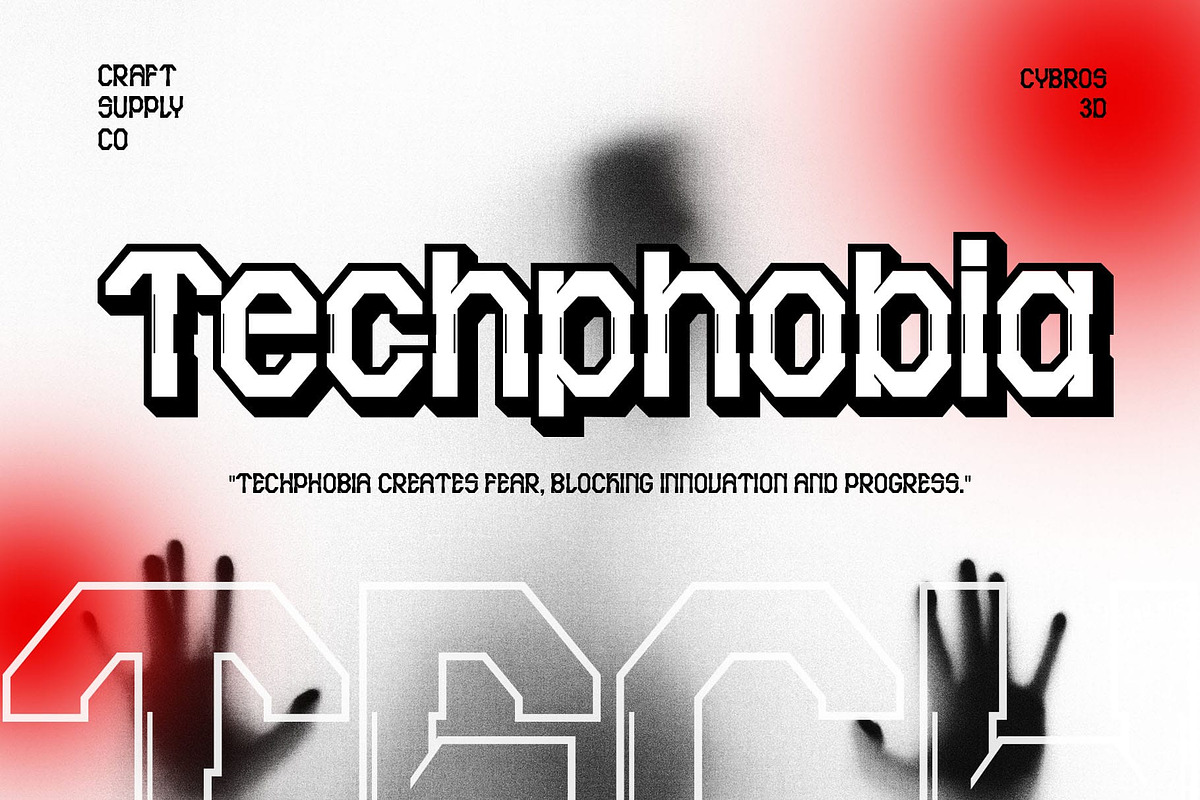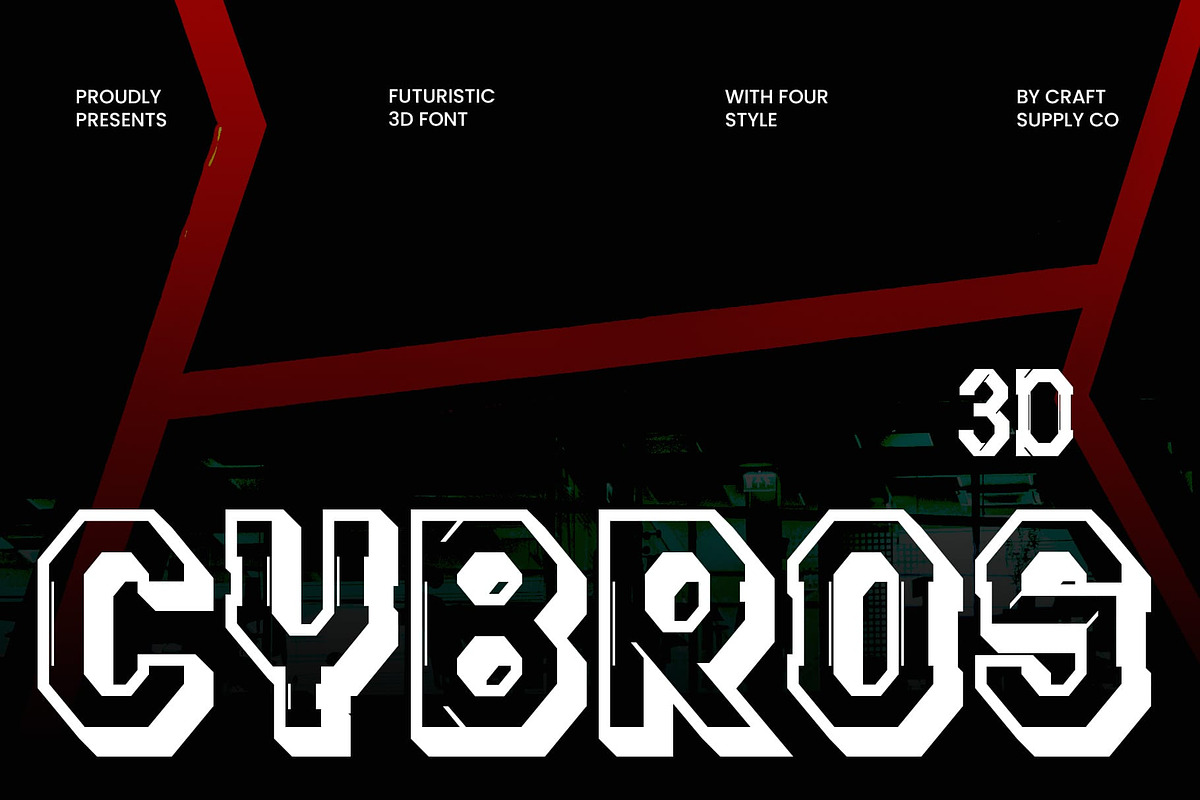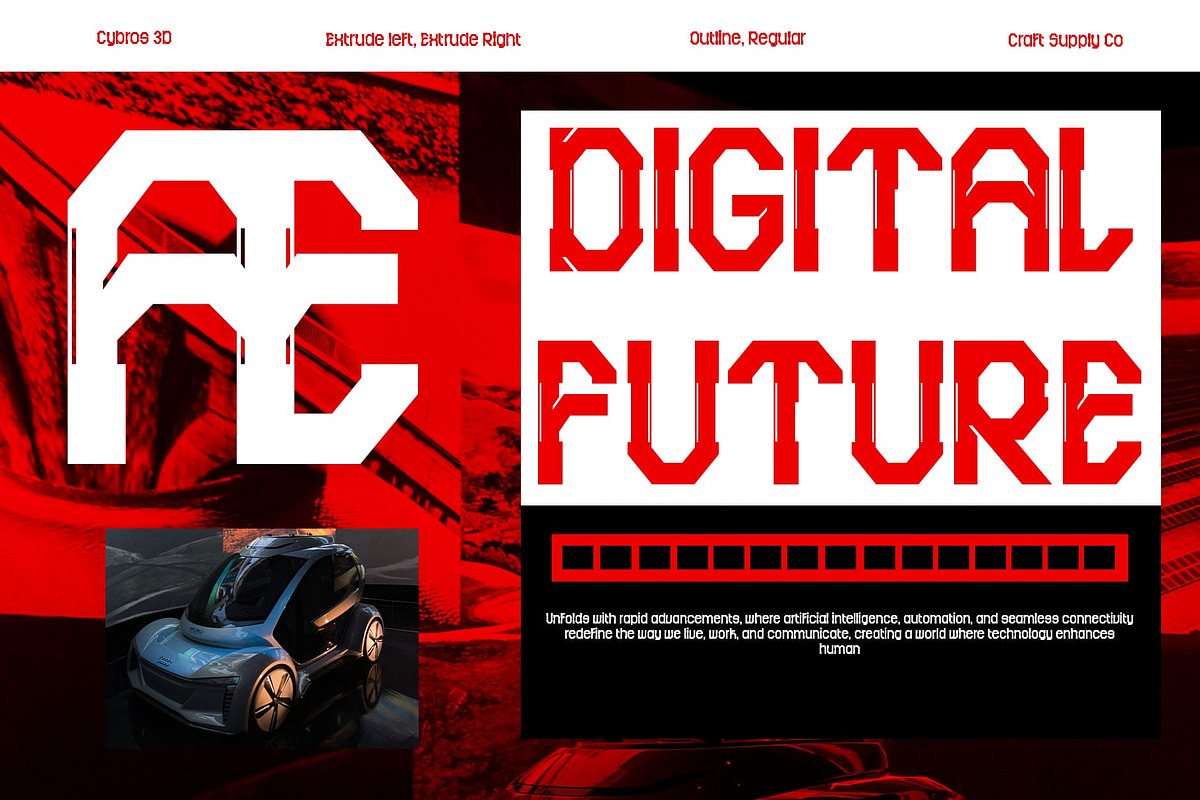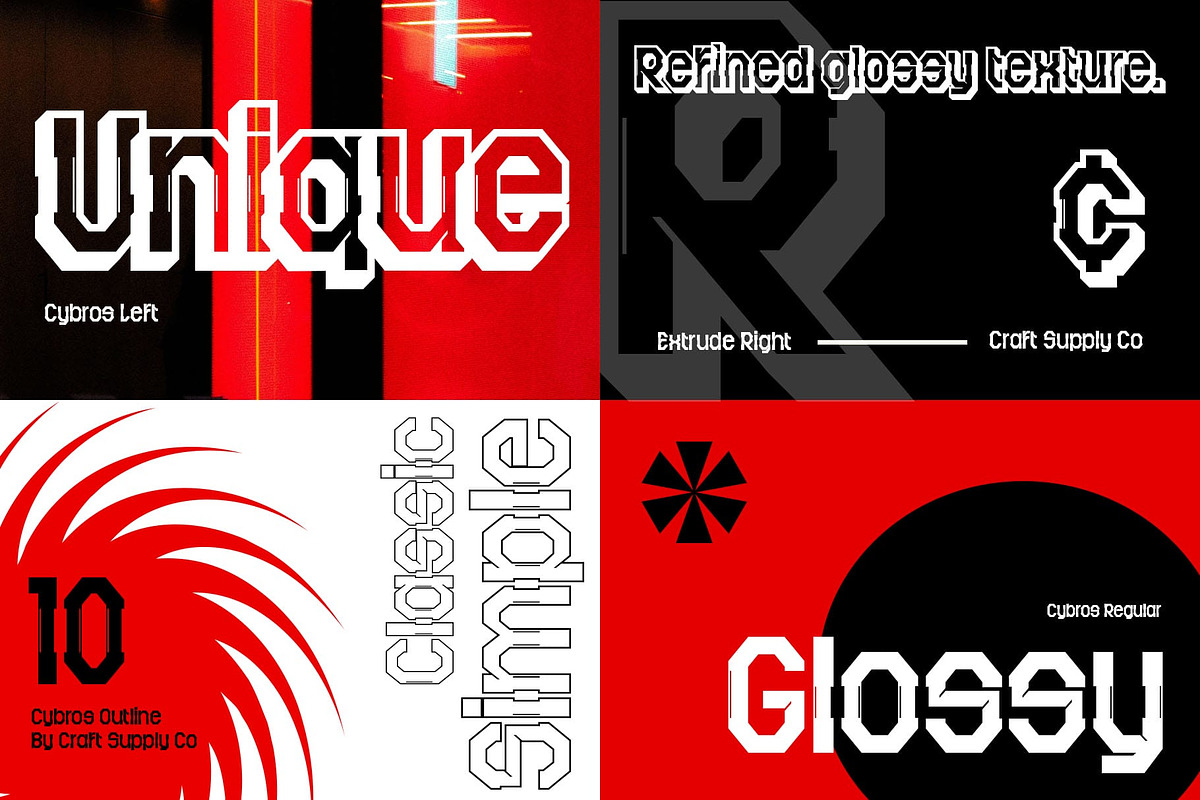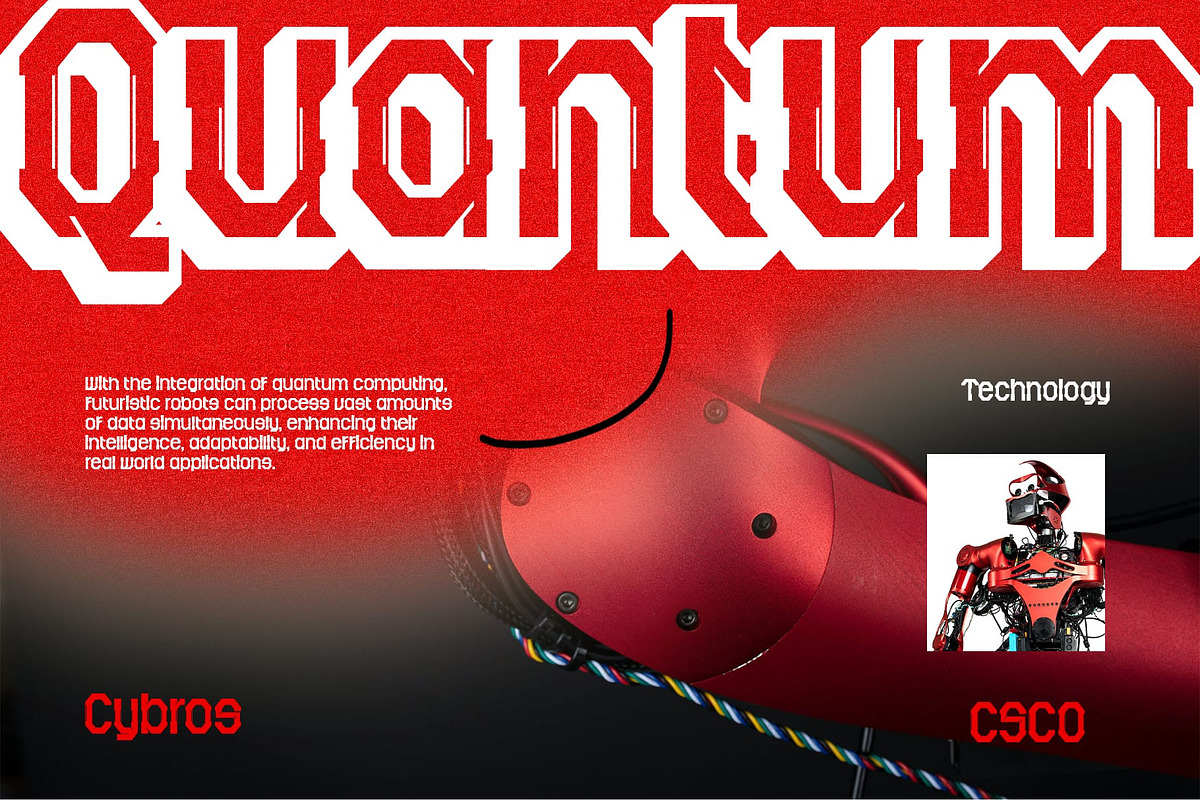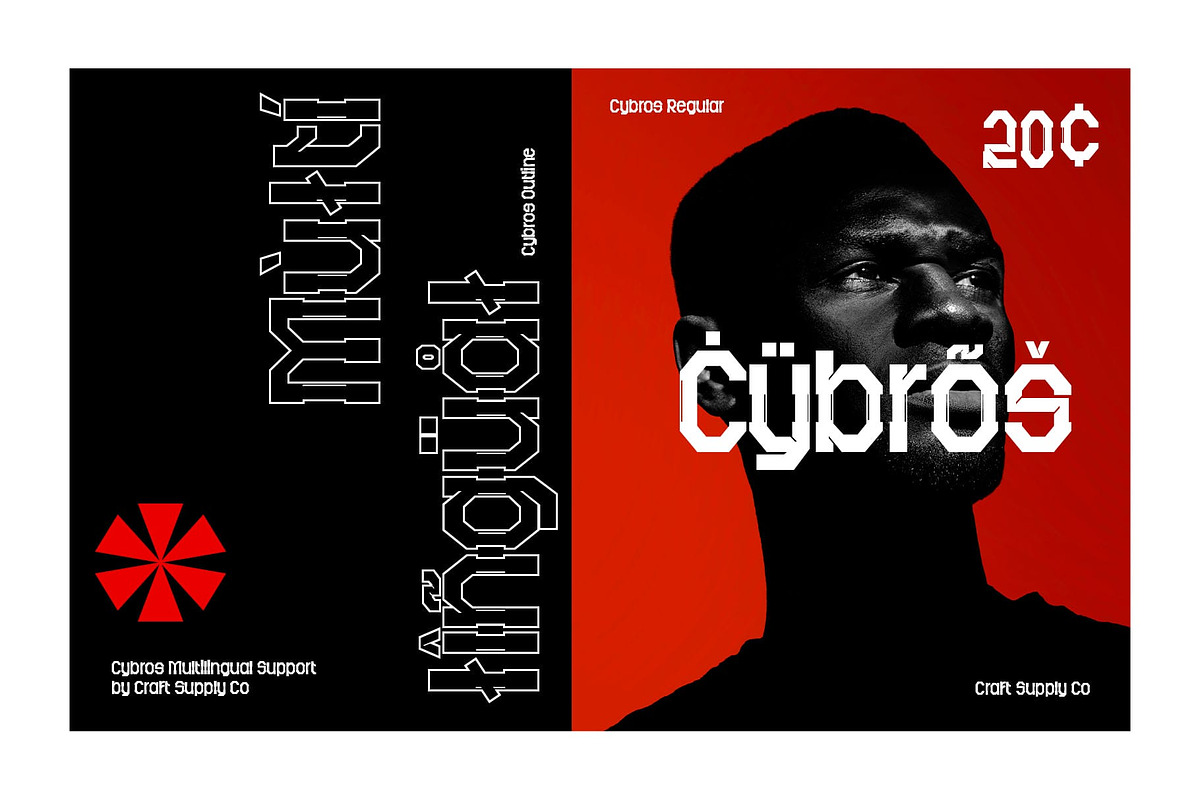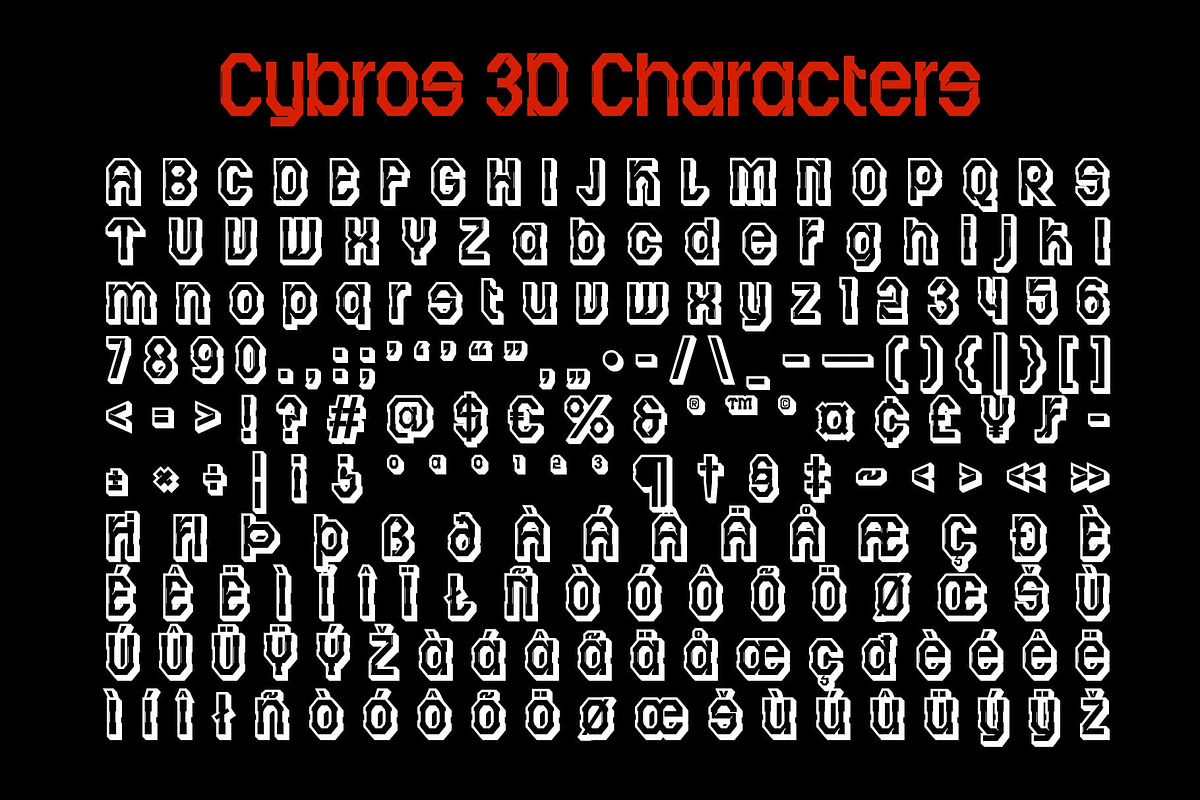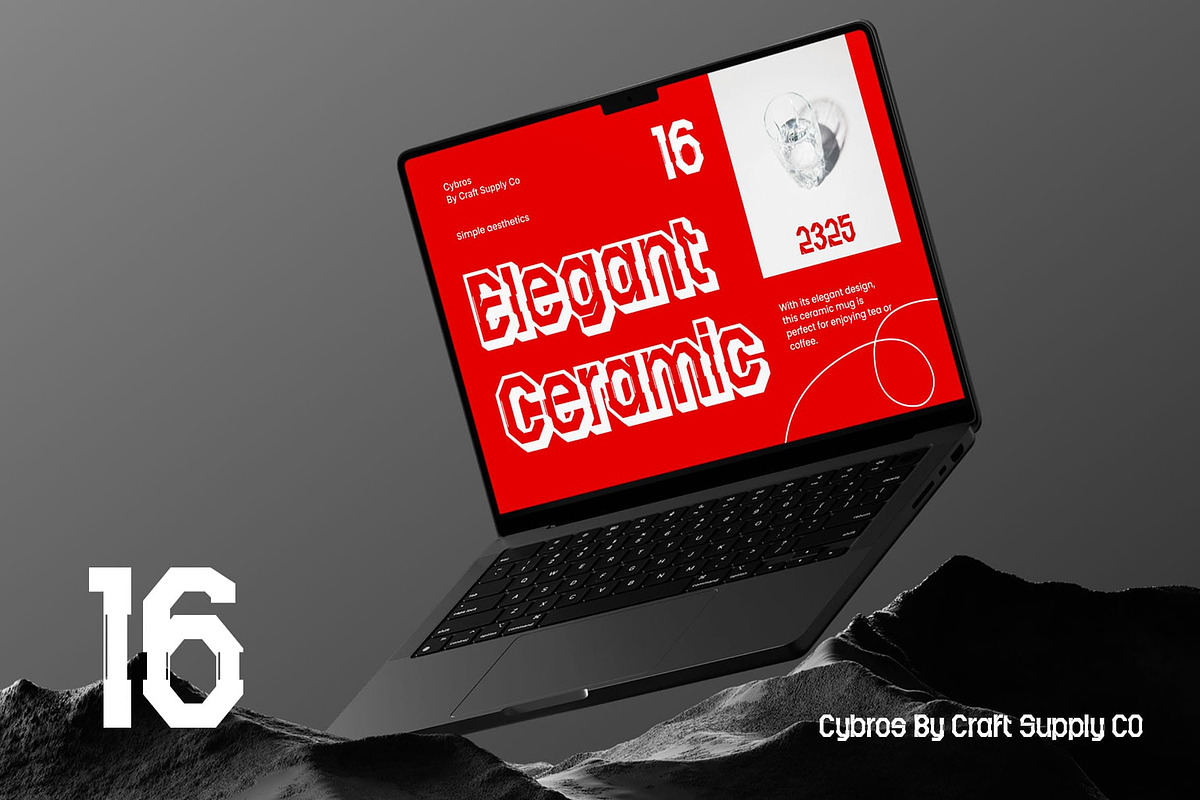
Cybros 3D
Cybros 3D Font: Bold, Futuristic, and Dynamic
Modern Display Font with Futuristic Design Cybros 3D is a cutting-edge display font that combines bold, geometric letterforms with a futuristic design. Its sleek lines and high-tech elements create a contemporary feel, making it ideal for designs that need to convey innovation, technology, and the future.
Visual Depth with 3D Effect The applied 3D effect in Cybros 3D adds a unique layer of visual depth, making each letterform pop and giving the font a dynamic, striking appearance. Whether bold and boxy or subtly curved, the 3D styling enhances its futuristic aesthetic, making it stand out in any creative project.
Perfect for Technology and Sci-Fi Designs This font’s modern and daring vibe makes it a perfect choice for technology branding, sci-fi posters, game design, and digital projects. Its bold appearance ensures it will grab attention while conveying a sense of cutting-edge innovation and futuristic advancement.
A Progressive Typeface for Creative Projects Cybros 3D is the ideal font for projects that want to push boundaries and make a statement. With its dynamic, modern look and high-tech 3D effect, it’s perfect for digital artwork, futuristic campaigns, and creative designs that need a bold, progressive touch.
- Cybros Regular
- Cybros Outline
- Cybros Extrude Right
- Cybros Extrude Left